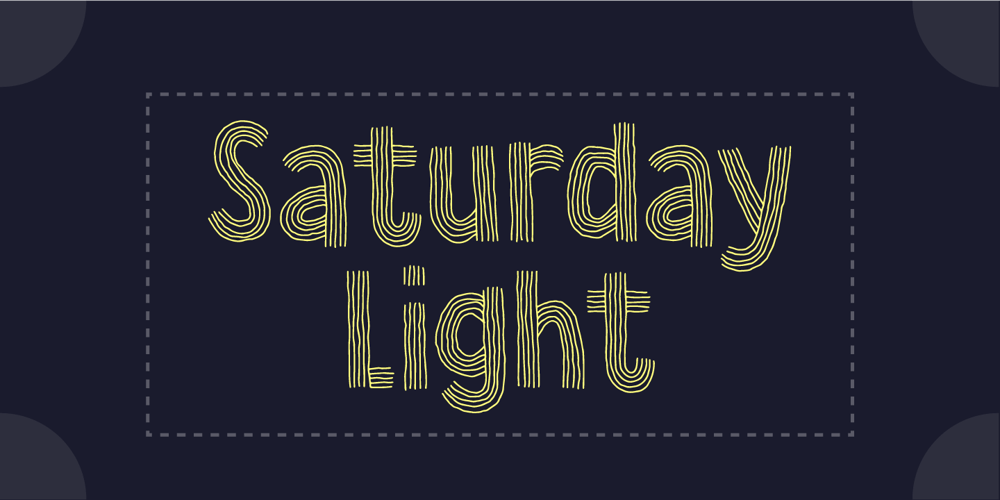
Saturday Light Font Family was designed by Jakob Fischer and published by Bogstav. Saturday Light contains 2 styles and family package options. This font was made while listening to The Cure, and taking a trip down memory lane. However, the particular song I had in mind naming the font after, was already taken. But perhaps you can figure out which song I had in mind?